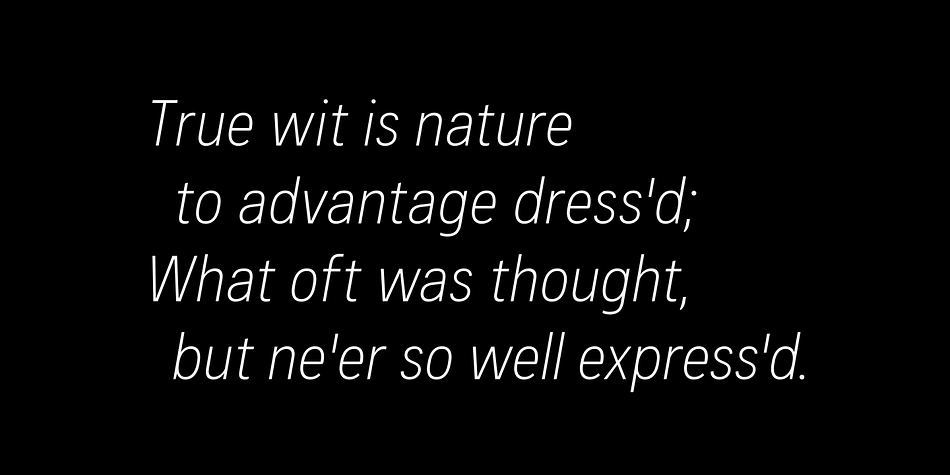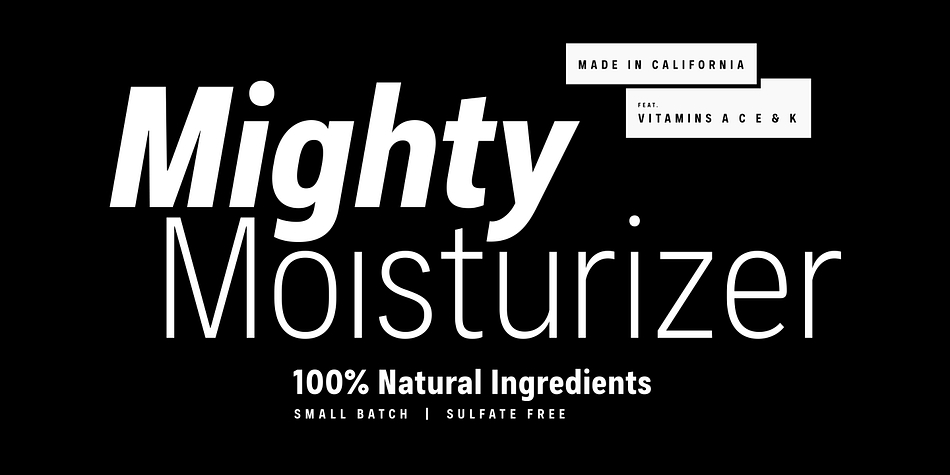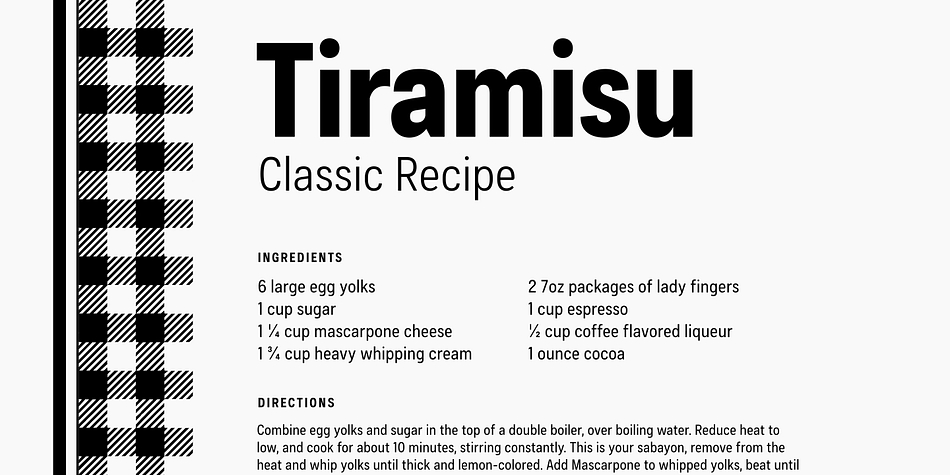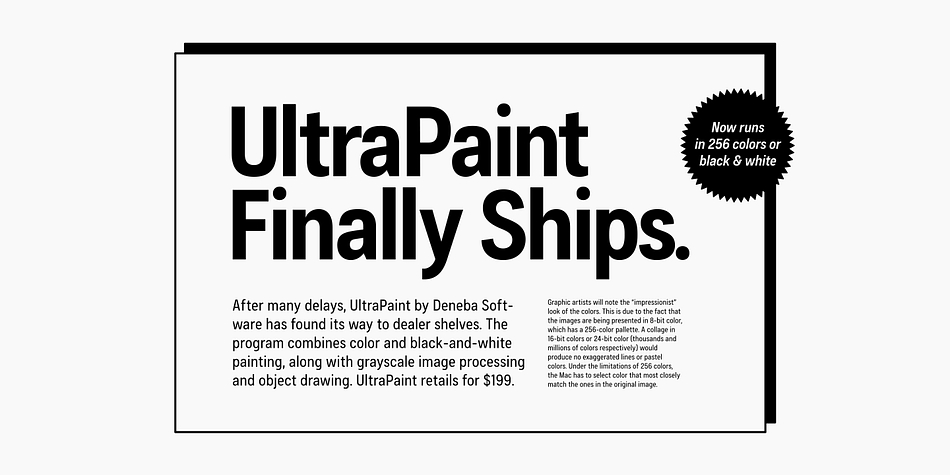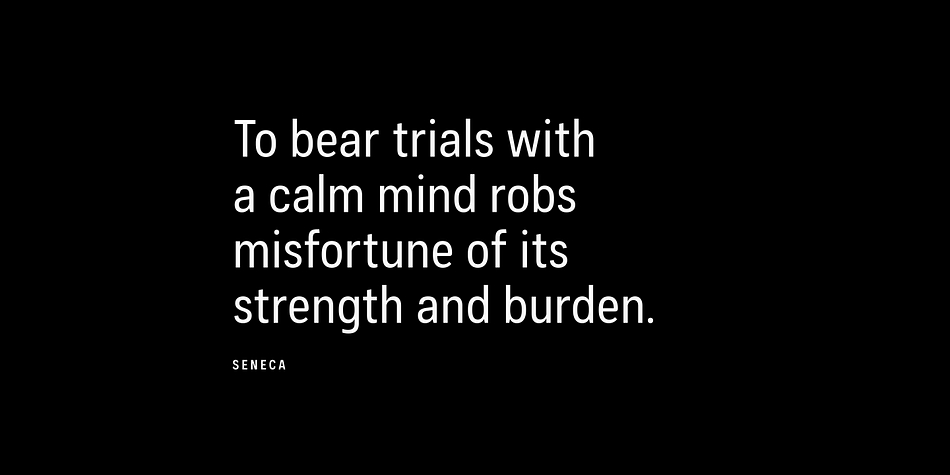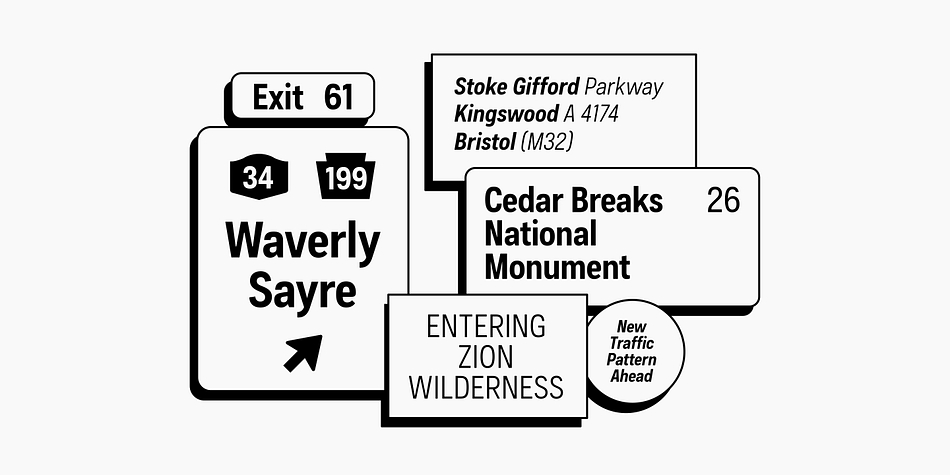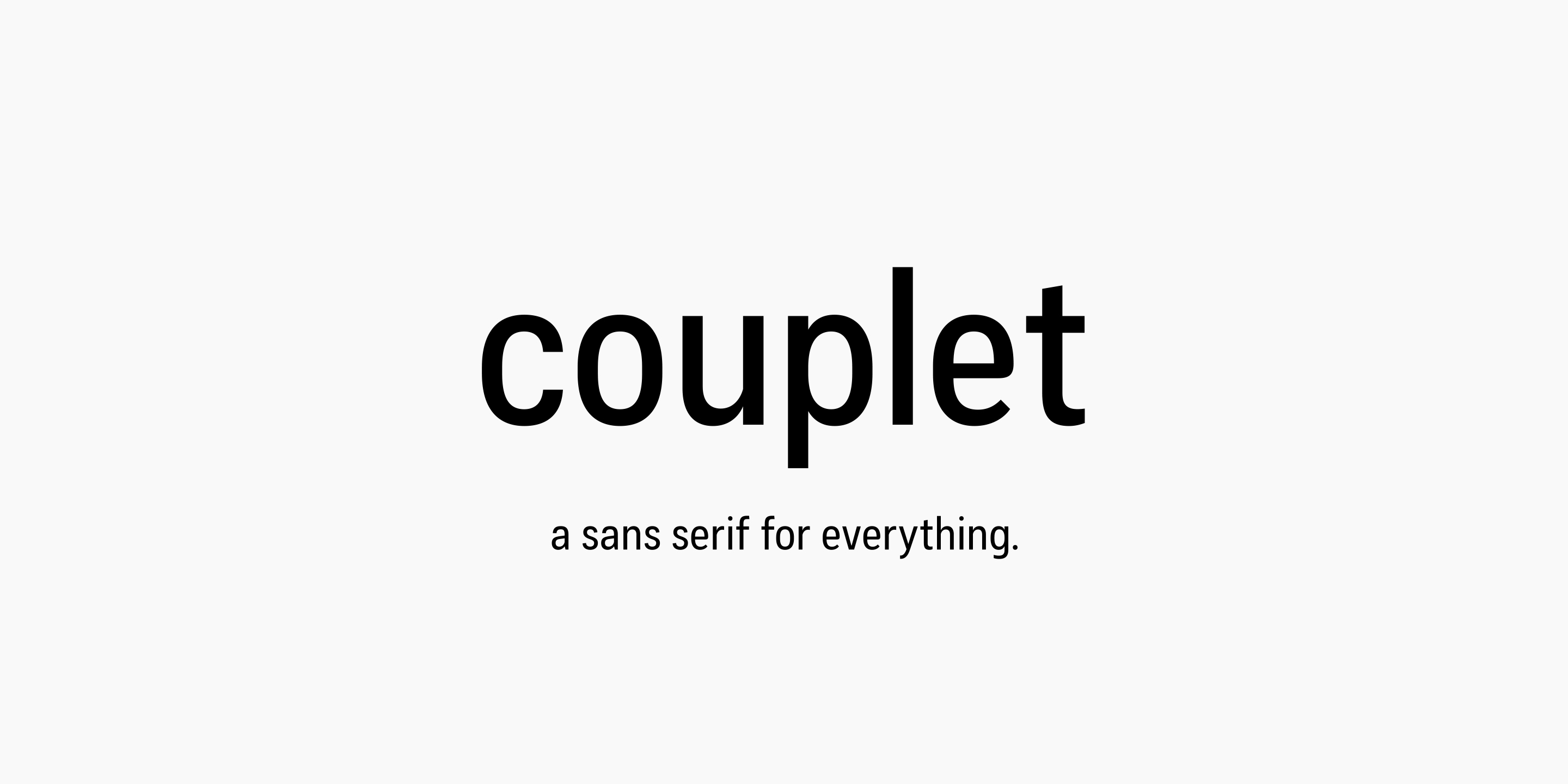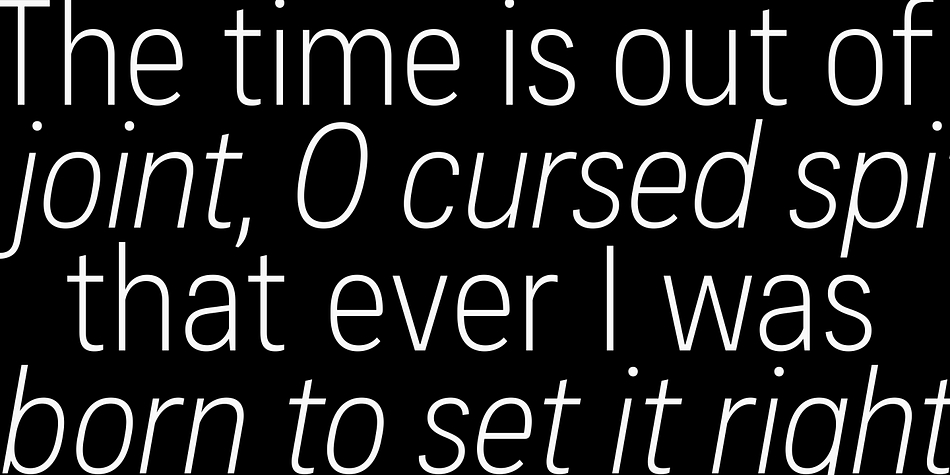
Designed by Connary Fagen, Couplet CF is a sans serif font family. This typeface has fourteen styles and was published by Connary Fagen Type Design.
Couplet CF is expressive and practical, with a blend of precision and warmth. A strong rectangular underpinning and slightly condensed construction support bright, attractive letterforms across seven weights. Couplet’s simple shapes and clean construction are designed to be used anywhere and everywhere – digital or print, large or small, Couplet excels.
• Seven weights
• Roman and oblique sets
• Extensive Latin script support